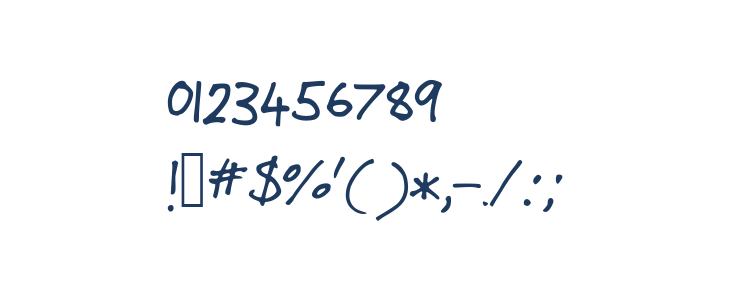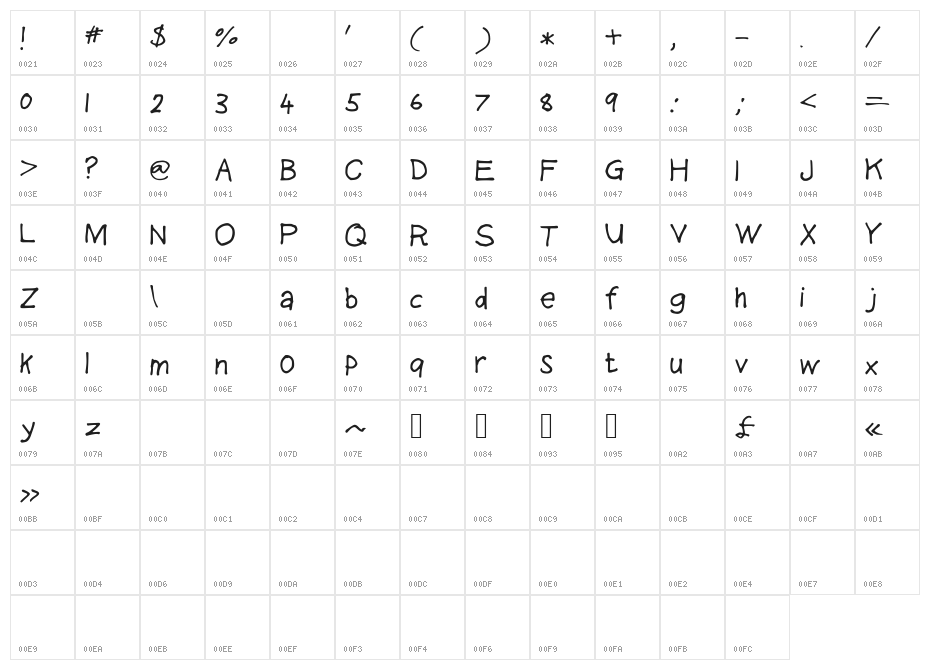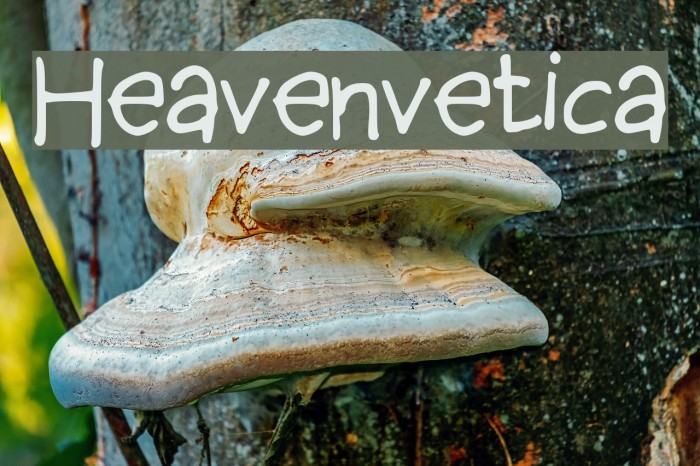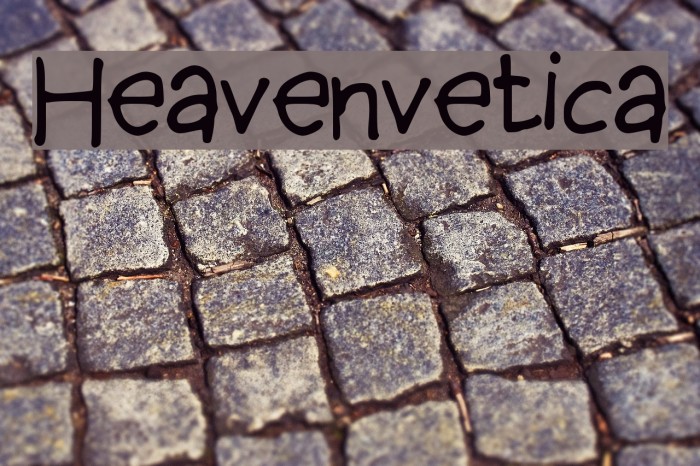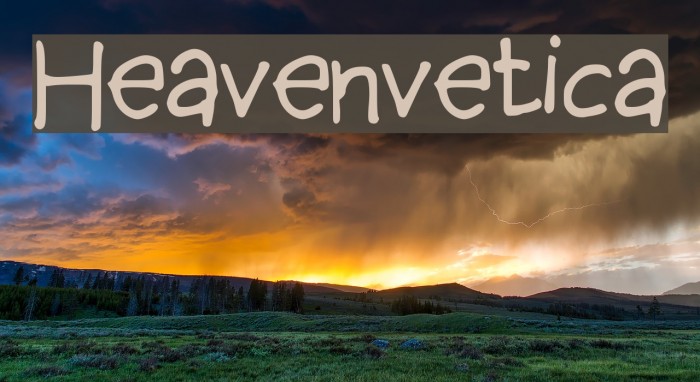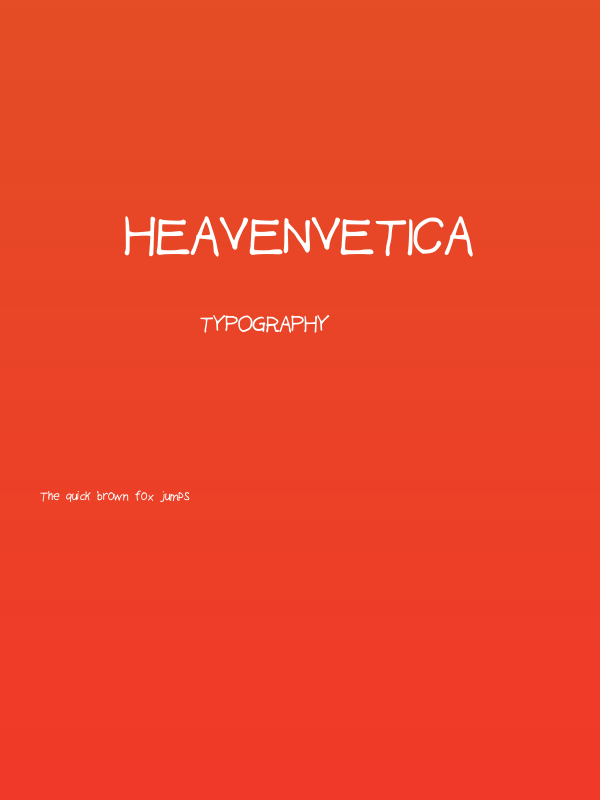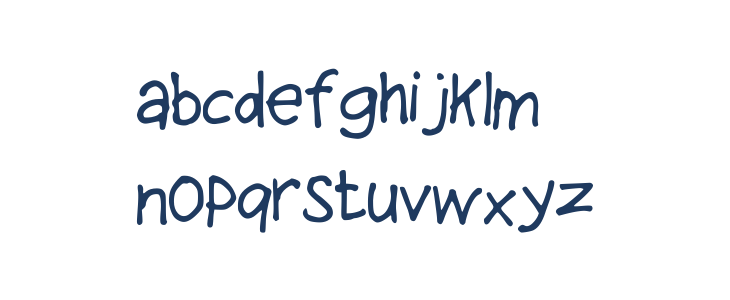
Heavenvetica Font
Heavenvetica Description
This font features a playful and informal handwritten style, characterized by its rounded and slightly irregular letterforms. The uppercase and lowercase letters maintain a consistent flow, with a casual and approachable appearance. The numerals and special characters complement the overall style, adding to its whimsical charm. The strokes are moderately thick, providing a balanced contrast that enhances readability while retaining a friendly aesthetic. This font's unique personality makes it suitable for projects that aim to convey warmth and creativity.
| Proposed Projects | Ideal for children's books, greeting cards, casual branding, and creative social media graphics. |